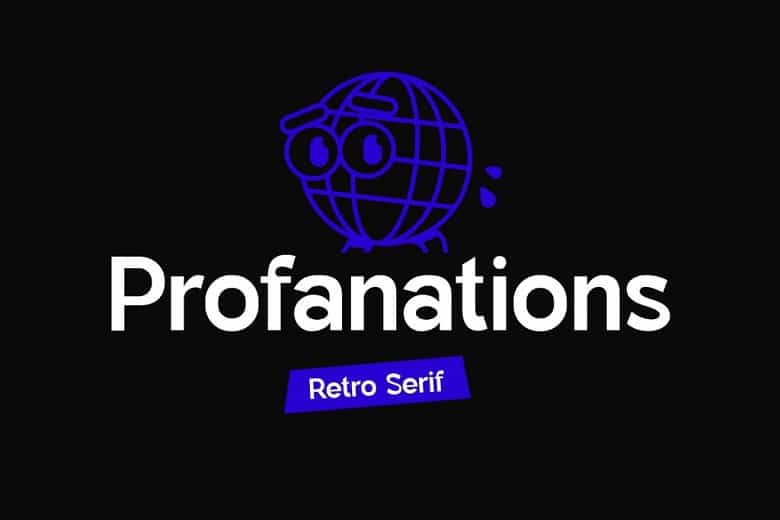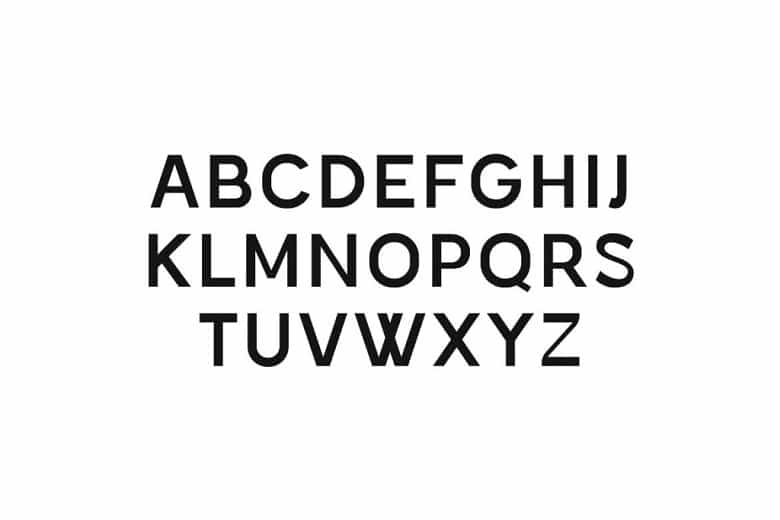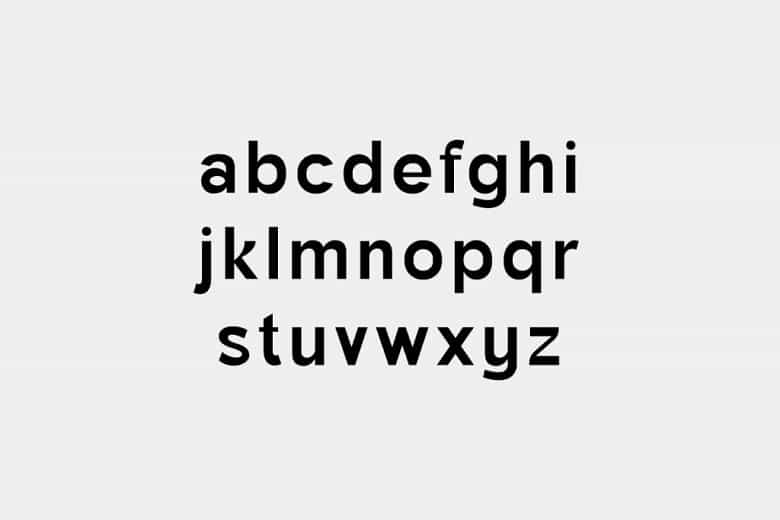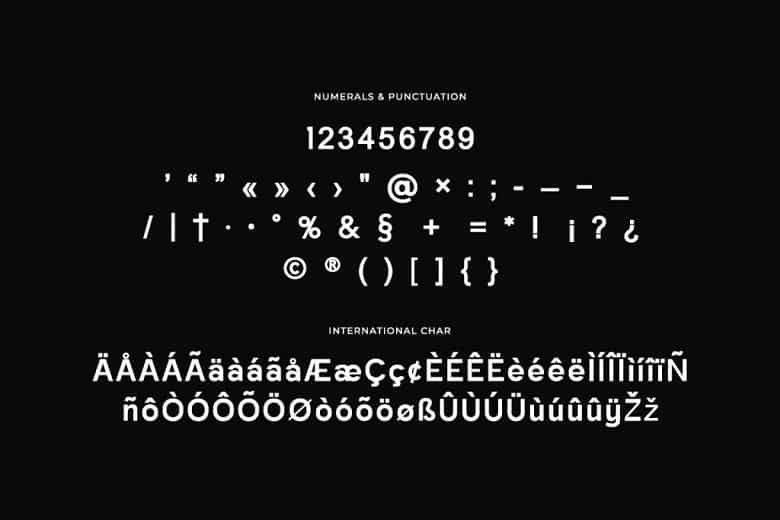
Profanations is a retro sans serif font family looks very classy, elegant and stylish which makes it perfect for modern designs. This font is perfect for any project and can be used in logo, wedding, typography quotes, magazine or book covers, website headers, branding and many more.